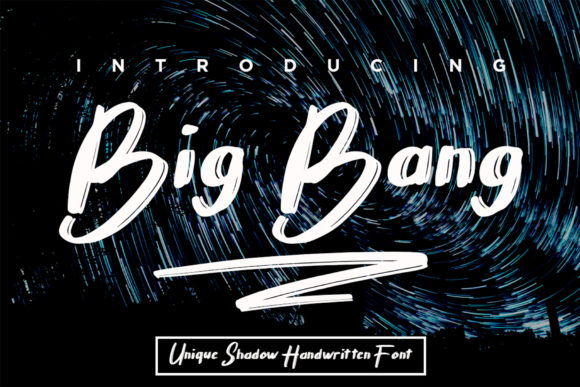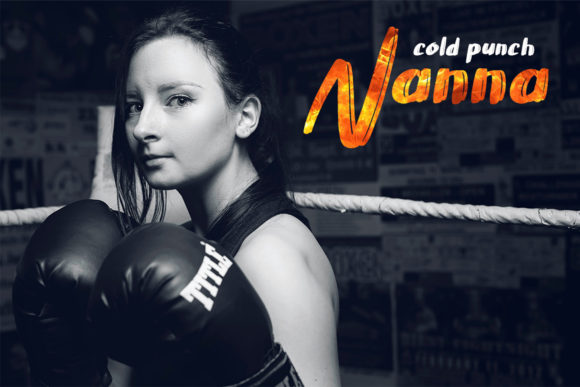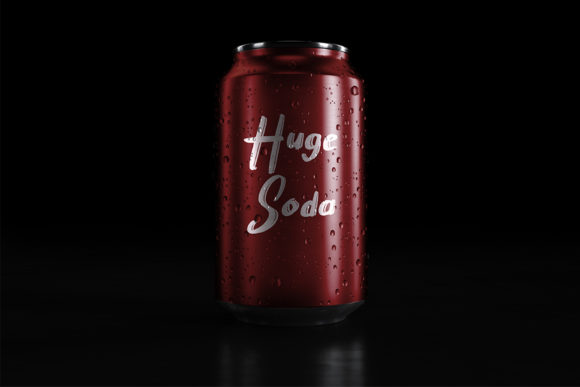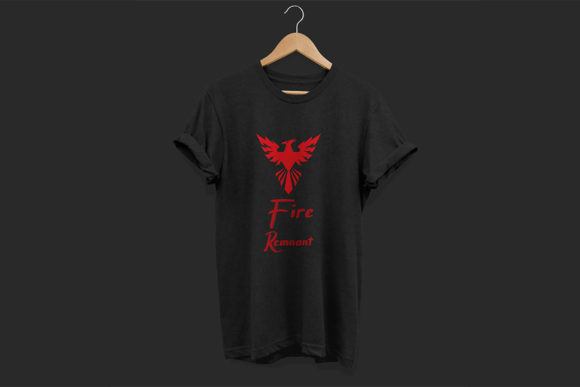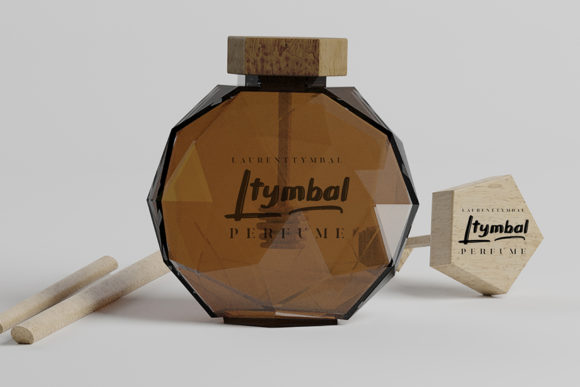
Big Bang Font
About Big Bang Font
Big Bang is a flowing handwritten font, described by an elegant touch, perfect for your favorite projects. Fall in love with its incredibly distinct and timeless style and use it to create spectacular designs!